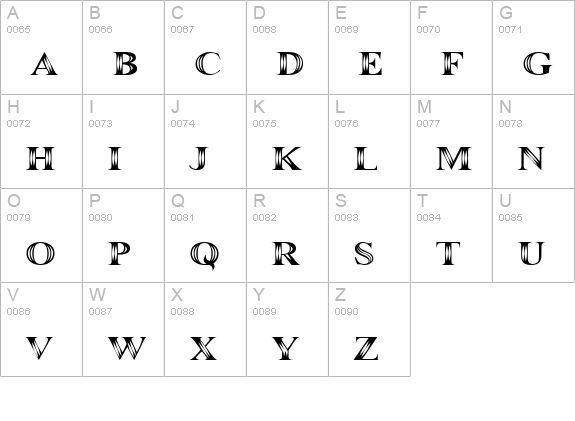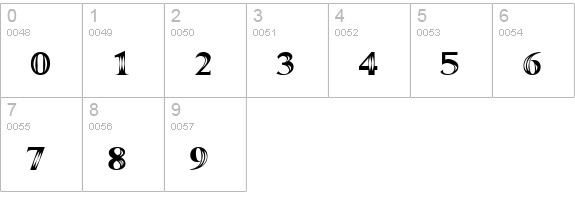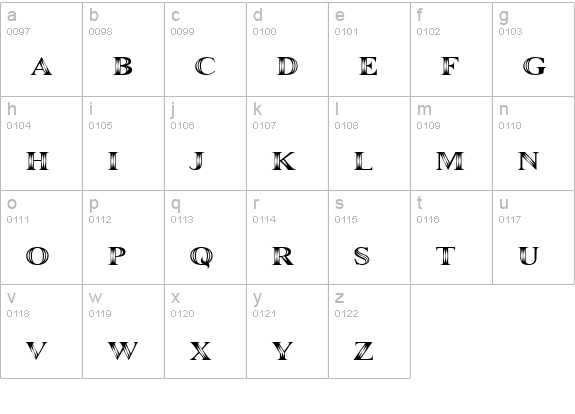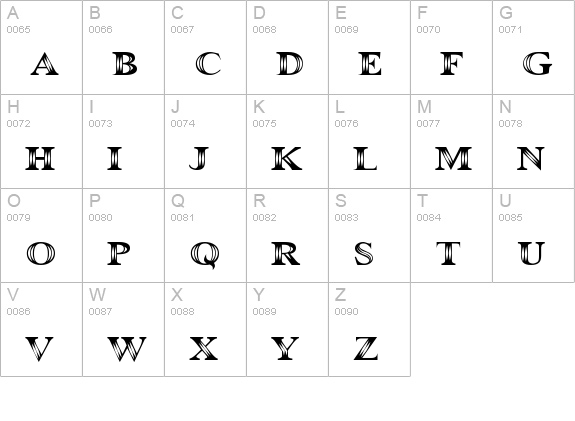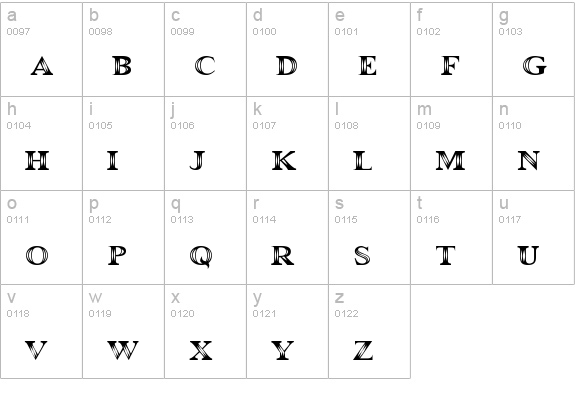
Maranallo Font Details
Maranallo font is a mesmerizing and elegant typeface that will captivate any reader with its unique and stylish design. With its graceful curves and delicate strokes, this font exudes sophistication and refinement. Perfect for a wide range of design projects, including logos, branding, invitations, and more, Maranallo font adds a touch of class and elegance to any piece of artwork. Its versatility allows it to be used in both formal and casual contexts, making it suitable for various industries and purposes. One of the most remarkable aspects of Maranallo font is that it is free. Yes, you read that right! This stunning typeface is freely available to download at FontsMarket.com. Now, you can enhance your designs without having to worry about any additional costs. Whether you are a professional designer or a hobbyist, Maranallo font offers you the opportunity to elevate your creations to new heights. Its seamless legibility ensures that your message is conveyed with clarity and impact, while its exquisite details make it a true visual delight. So, why wait? Experience the beauty and versatility of Maranallo font today by downloading it for free at FontsMarket.com. Unleash your creativity and let this enchanting typeface transport your designs to a realm of elegance and sophistication.